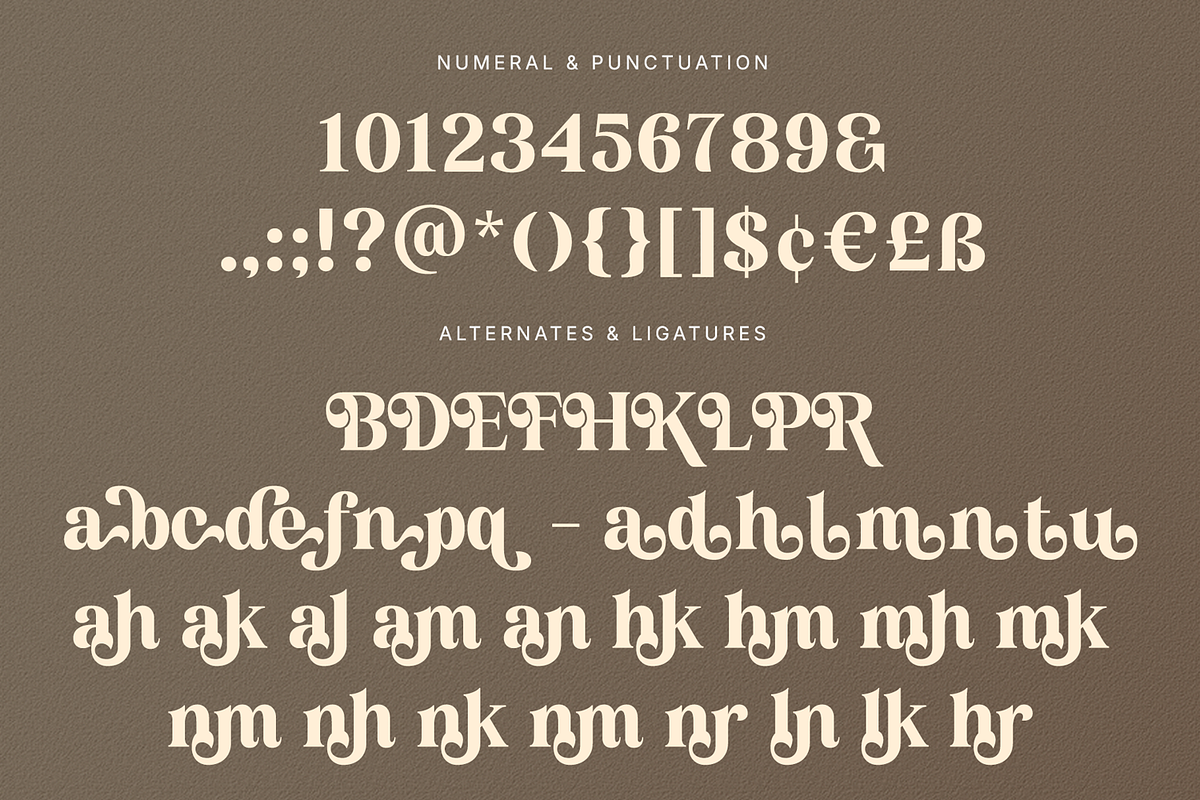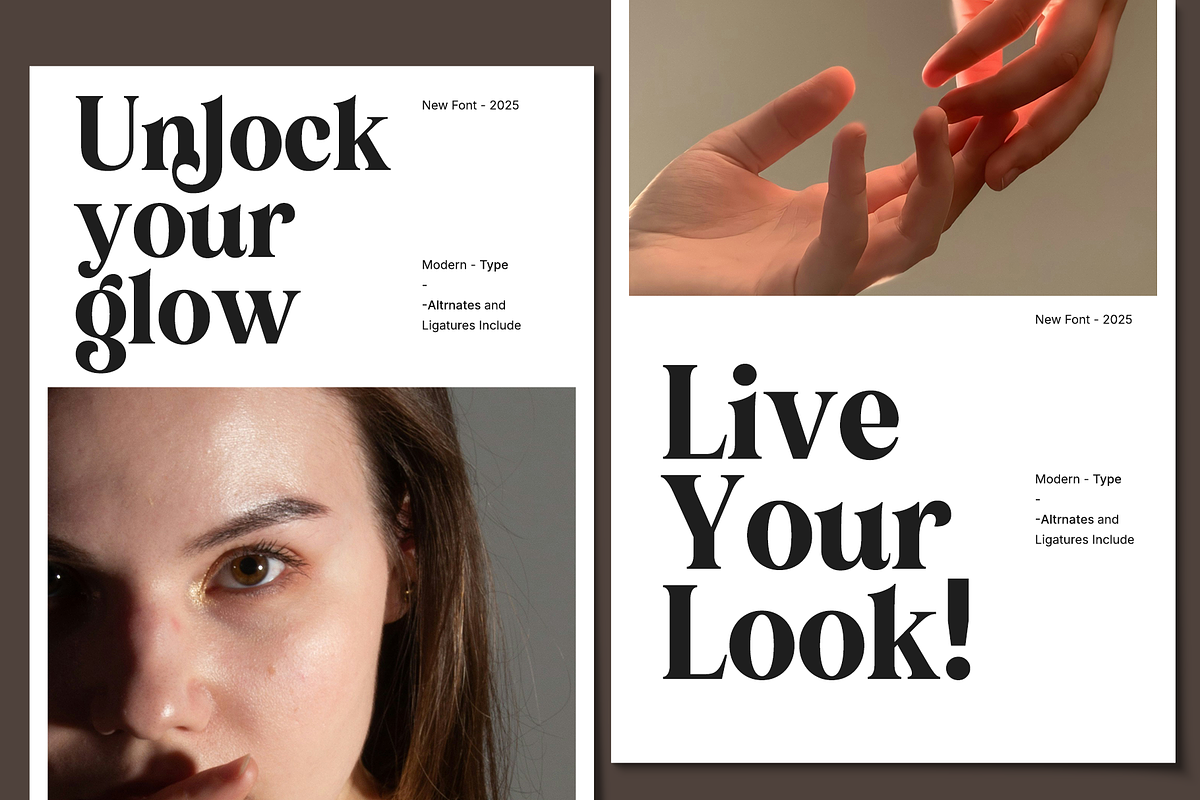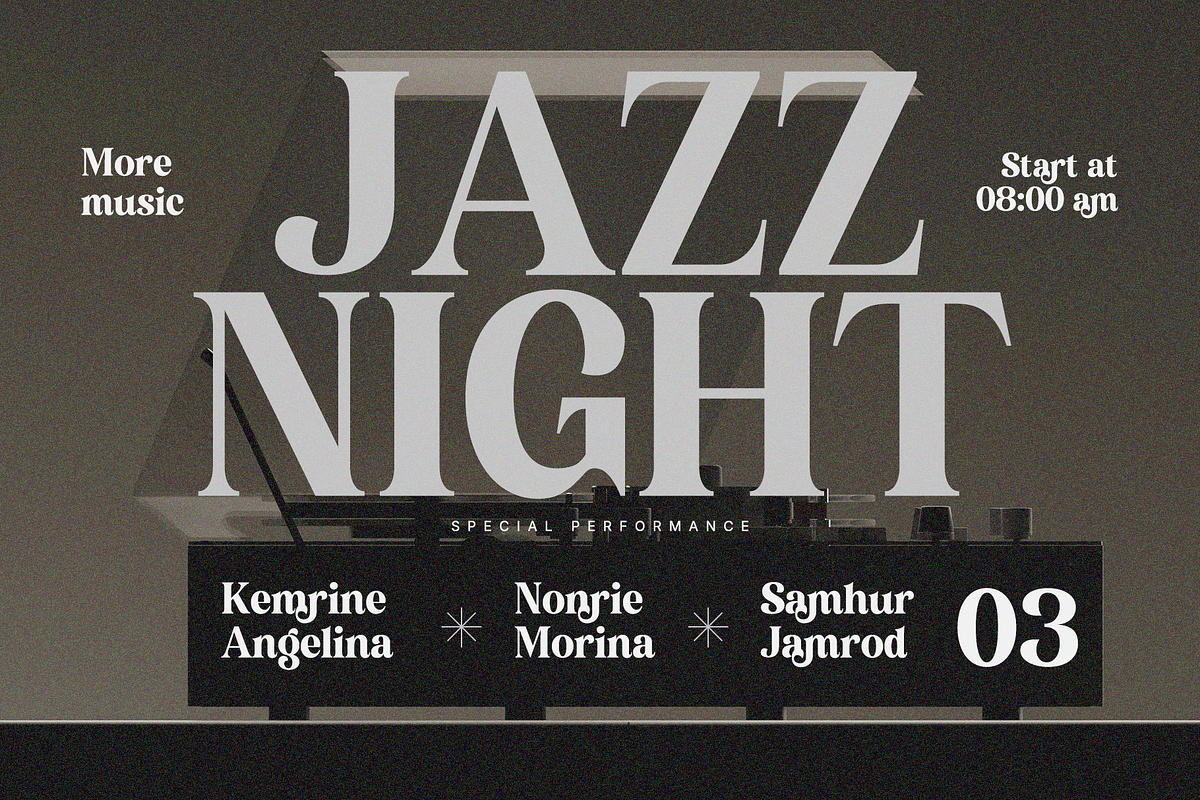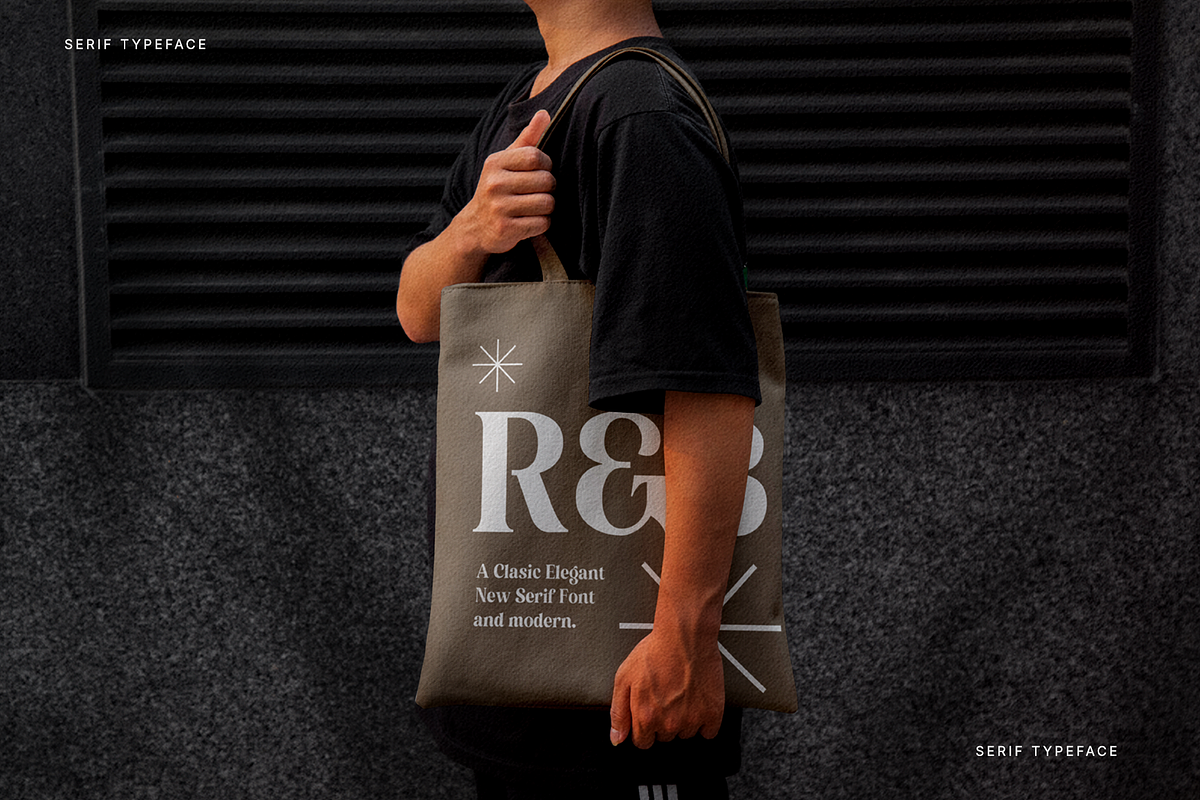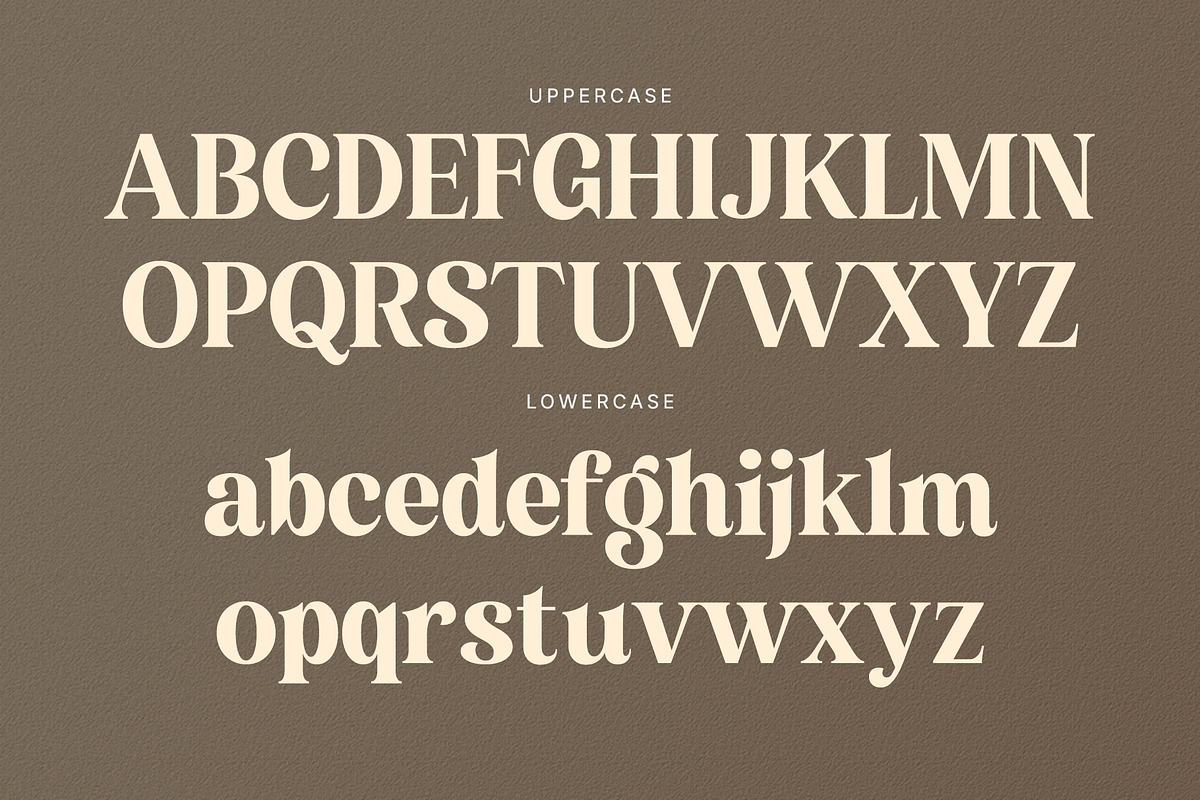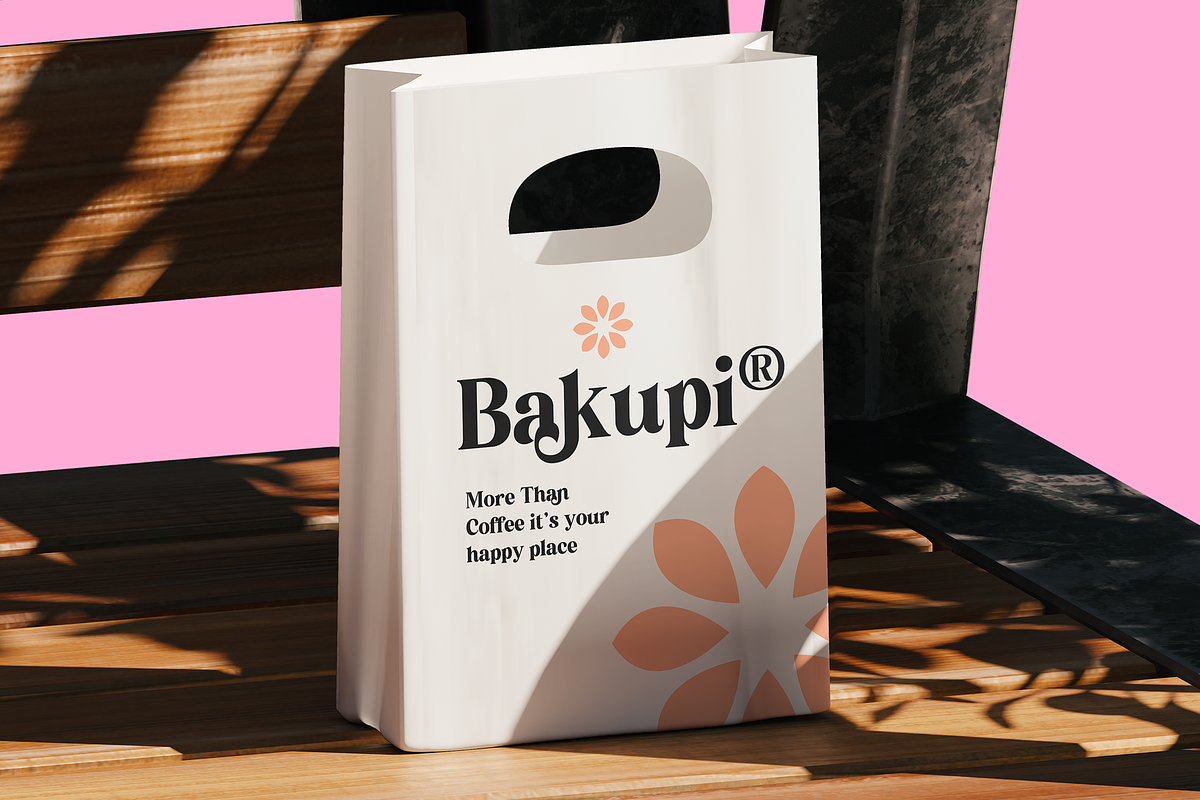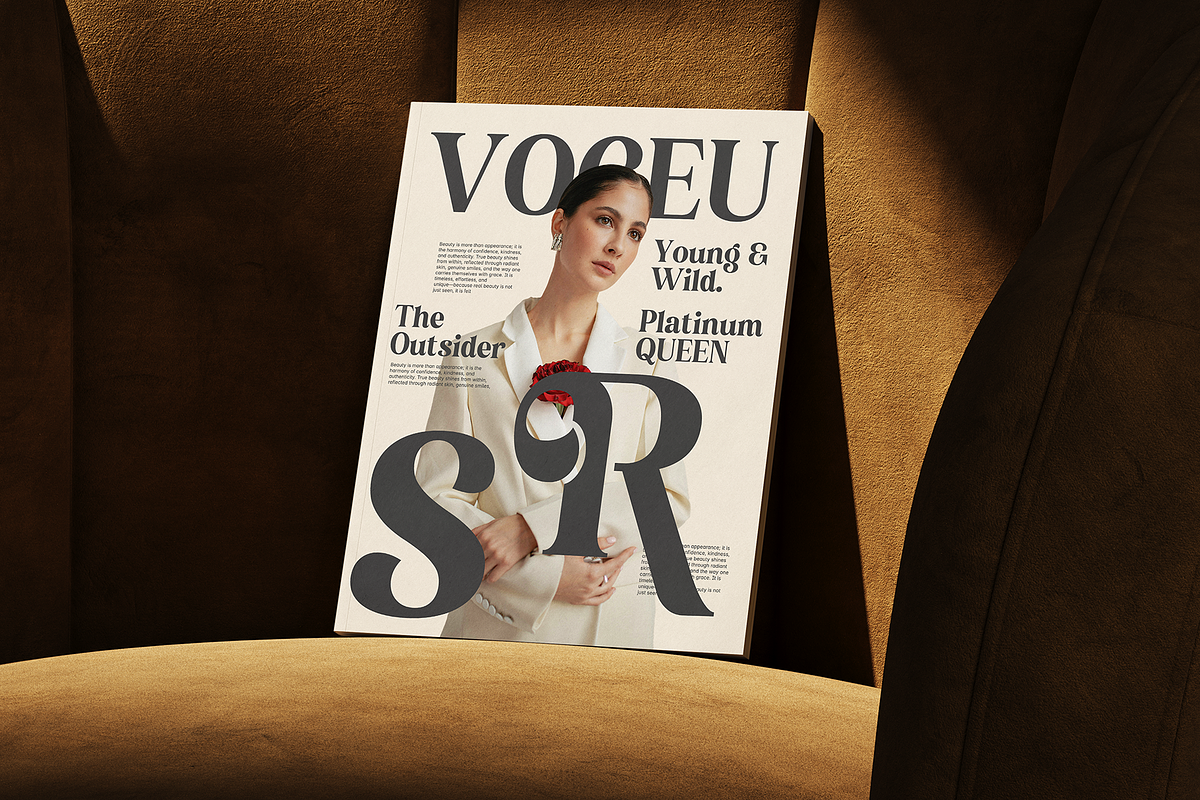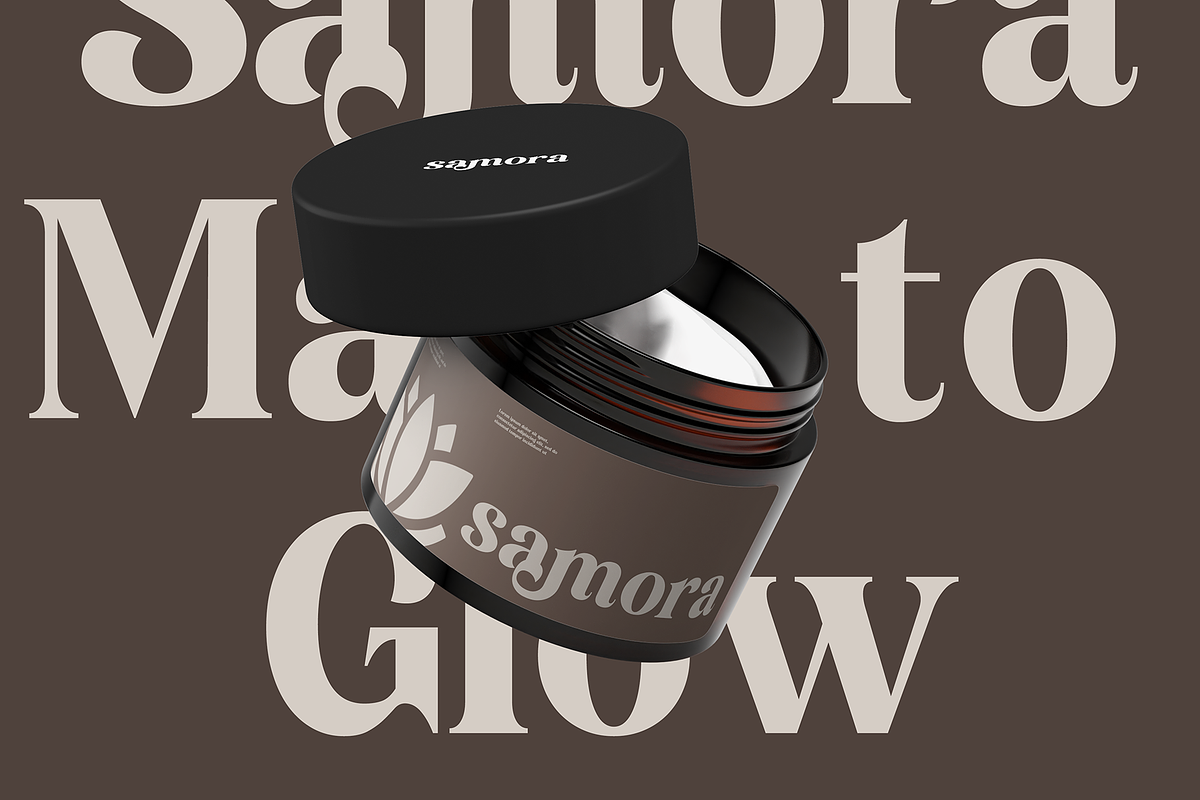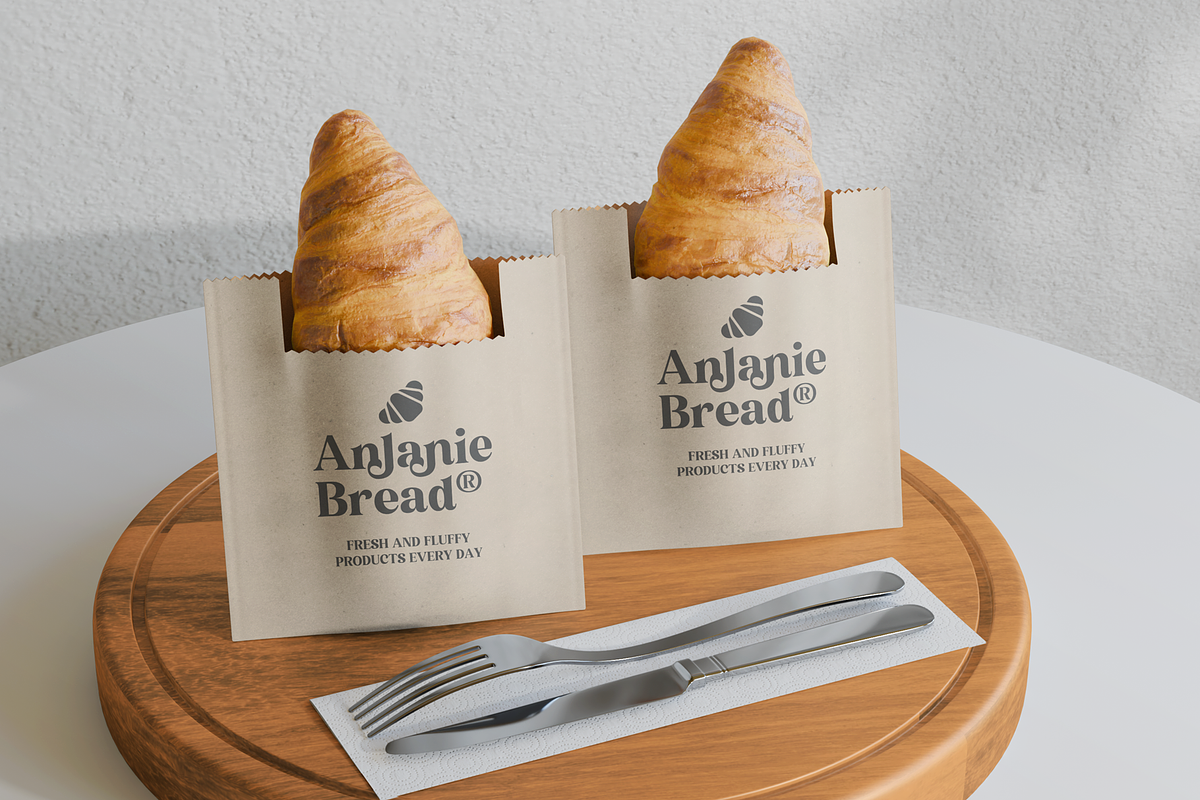
Roamilla - Beauty Logo Font
Roamilla is a serif font designed to bring a sense of warmth, nostalgia, and charm to any creative project. Its bold and organic letterforms reflect a timeless style that blends playful energy with vintage sophistication. The unique curves and details make it a versatile choice for both modern and classic design needs.
Perfectly suited for seasonal themes such as summer, spring, autumn, Thanksgiving, and Christmas, Roamilla enhances projects with a cozy and inviting atmosphere. Its lively essence captures the joy of celebrations, making it an excellent choice for invitations, posters, social media graphics, and festive crafts.
With an extensive collection of alternates and ligatures, Roamilla provides endless creative possibilities. Designers can explore unique variations to craft distinctive lettering that feels fresh and authentic. This flexibility allows the font to adapt seamlessly across diverse applications, from elegant wedding stationery to playful birthday designs.
Its inspired style also complements DIY crafts, Cricut projects, embroidery, and SVG creations. Whether highlighting headlines or adding character to detailed lettering, Roamilla maintains clarity while radiating personality and charm. The balance between bold shapes and refined details ensures visual impact in both digital and print formats.